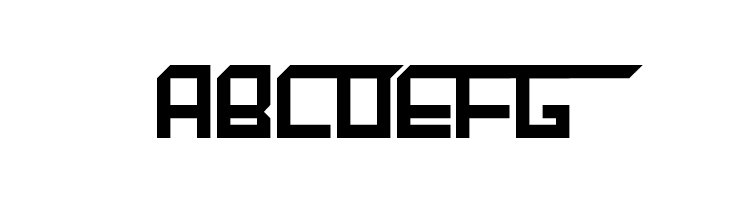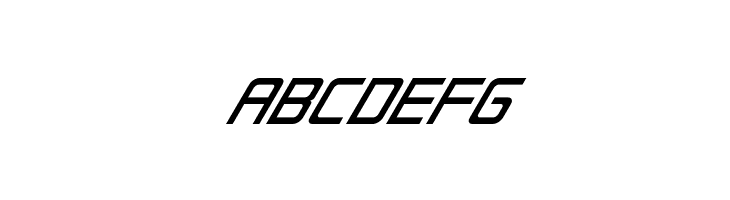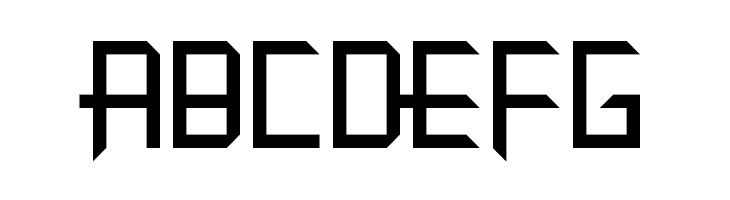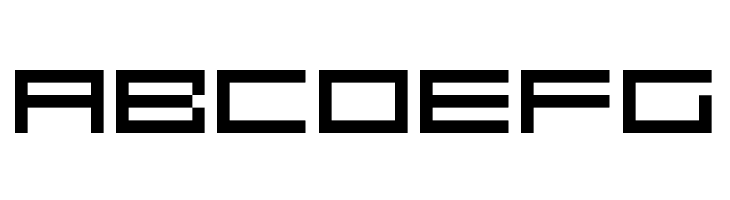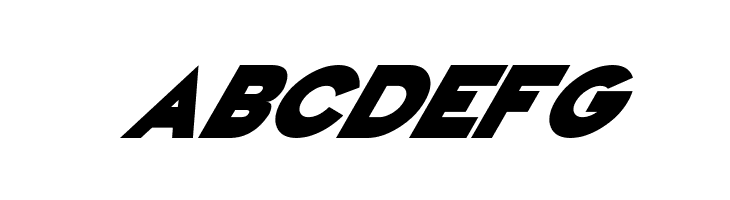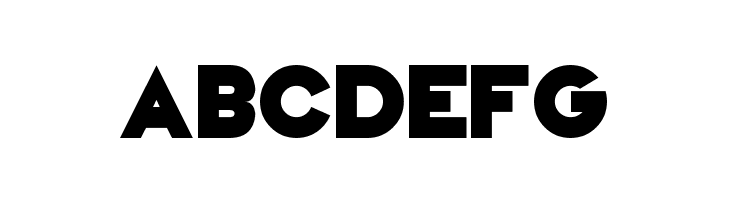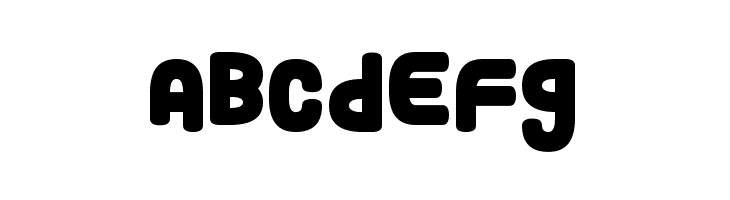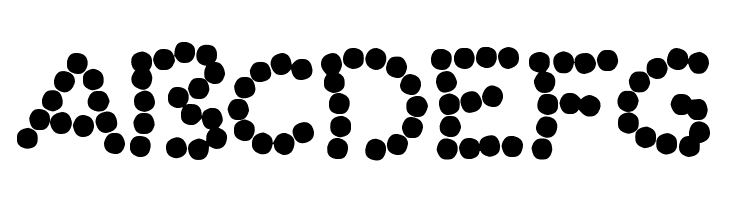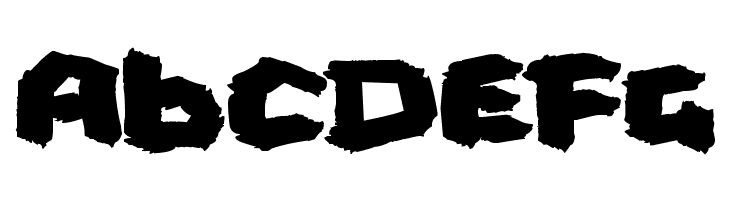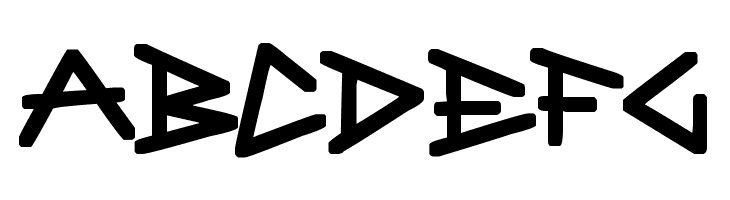
A bold, angular, and futuristic italic font with a dynamic style.
A futuristic, geometric font with clean lines and squared edges.
A futuristic, italic font with sharp angles and a sleek, modern design.
A bold, geometric font with sharp angles and a futuristic look.
A futuristic, geometric font with a digital, robotic style.
A bold, italic font with sharp angles and a dynamic style.
A bold, geometric font with sharp angles and a modern aesthetic.
A playful, bold font with rounded edges and a bubbly, friendly appearance.
A bold, futuristic font with geometric and angular letterforms.
A bold, distressed font with a rugged, volcanic texture.
A rugged, hand-chiseled style with a prehistoric aesthetic.
A playful balloon-themed font with rounded, bubbly characters.
A bold, blocky font with a modern, industrial feel.
A playful, cartoonish font with bold outlines and a hand-drawn style.
A playful, hand-drawn font with bold, rounded characters and a whimsical style.
A bold, edgy font with a taped-together appearance, featuring sharp, angular characters.
A playful, hand-drawn font with a cartoonish, whimsical style.
A playful, dot-connected font with a whimsical and friendly style.
A playful, hand-drawn 3D font with a bold, textured style.
Bold, rounded, hand-drawn marker style font with a playful and informal look.
A playful, bold font with irregular strokes and a lively, energetic appearance.
A bold, playful font with a chalkboard style and dashed pattern.
A playful, paint-splatter inspired font with bold, irregular characters.
A bold, playful font with a hand-drawn marker style.
A bold, playful font with chunky outlines and a whimsical, cartoonish style.
A playful, bold font with thick, rounded outlines and a whimsical style.
A playful, bold outline font with a cartoonish and dynamic style.
A bold, cartoonish font with thick outlines and playful character shapes.
A playful, comic-style font with bold outlines and dynamic, hand-drawn characters.